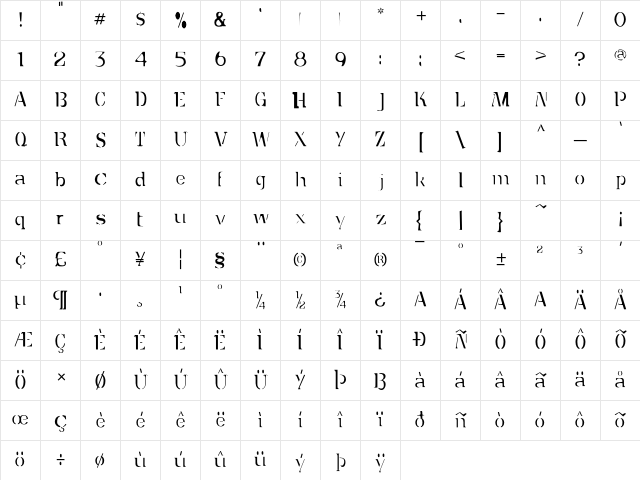
Complete Dumpster Regular glyph index. Displaying only characters natively supported by Dumpster Regular font.
Dumpster is a composed and adaptable typeface that performs quietly and consistently across a wide range of design contexts.